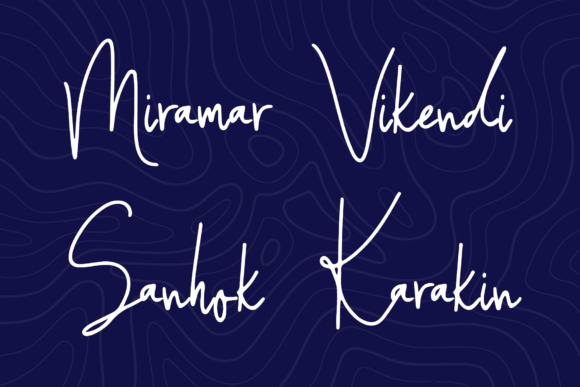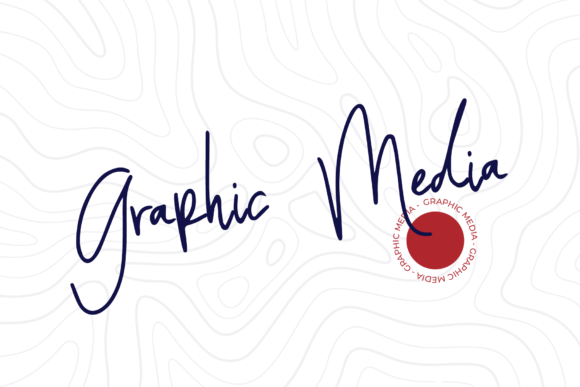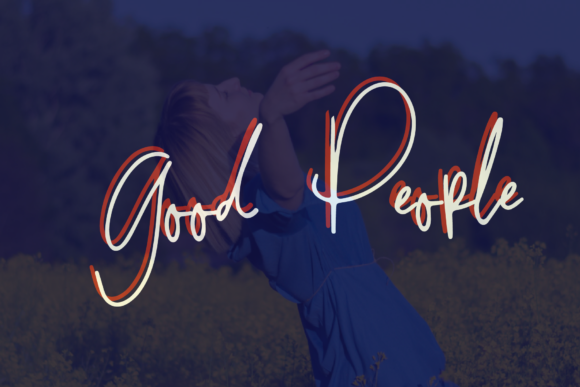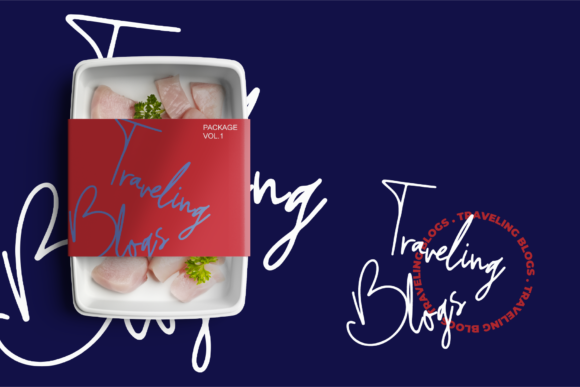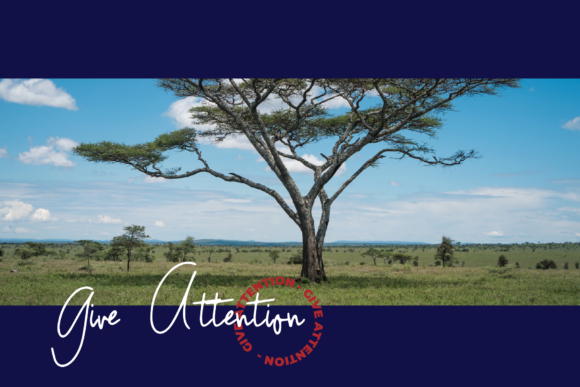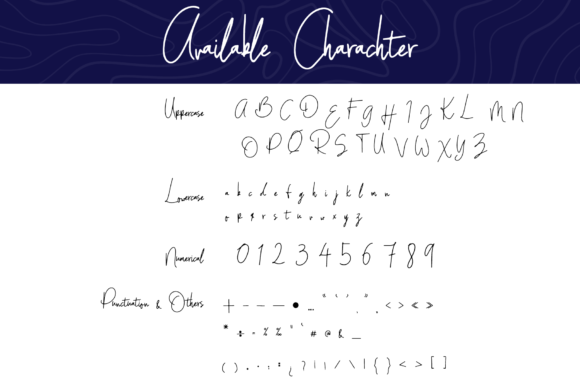
Introducing Erangel Field Font: Elevate Your Designs with Elegance and Personality
In the world of typography, a font can make or break the aesthetic of a design. For those seeking a touch of elegance and personalization, the Erangel Field Font is a game-changer. This unique and elegant handwritten font is perfect for designers and crafters looking to add a distinctive flair to their projects. From wedding invitations to logos, Erangel Field is versatile and sure to impress.
The Beauty of Erangel Field
Erangel Field Font boasts a beautiful, handwritten style that exudes sophistication and charm. Its elegant strokes and carefully crafted letters make it an ideal choice for designs that require a personal touch. Whether you’re working on wedding-related projects, such as invitations, thank you cards, or greeting cards, Erangel Field is sure to bring a level of refinement and luxury.
One of the standout features of Erangel Field Font is its versatility. It’s not limited to wedding designs; it can be used across a variety of projects, including:
- Wedding Invitations: Make your wedding invitations truly special with Erangel Field’s elegant and cursive style.
- Thank You Cards: Express gratitude in style with beautifully crafted thank you cards.
- Greeting Cards: From birthdays to anniversaries, Erangel Field adds a touch of elegance to any greeting card.
- Logos: Yes, you read that right! Erangel Field can also be used to create stunning logos that stand out.
Why Choose Erangel Field Font?
With so many fonts available, why should Erangel Field be your go-to choice? Here are a few compelling reasons:
- Unique and Elegant: Erangel Field offers a fresh and distinctive look that sets it apart from more common fonts.
- Personalized Style: Add a personal touch to your designs with a font that feels both luxurious and approachable.
- Easy to Read: Despite its elegant nature, Erangel Field remains clear and easy to read, making it perfect for a variety of applications.
- Highly Versatile: Use it across different projects and mediums, from digital designs to print materials.
Tips for Using Erangel Field Font
To make the most of Erangel Field Font, consider the following tips:
- Pair with Simplicity: Let Erangel Field be the star of your design by pairing it with simpler fonts or backgrounds.
- Play with Colors: Experiment with different colors to find the perfect match that enhances the elegance of Erangel Field.
- Consider Size: While Erangel Field is elegant in larger sizes, it also works beautifully in smaller sizes for more subtle applications.
| Font Name | Erangel Field Font |
| Author | Jetsmax Studio |
Erangel Field Font is more than just a typeface; it’s a design element that can elevate your projects to new heights of elegance and sophistication. Whether you’re a professional designer or a crafter looking for that special touch, Erangel Field is sure to meet your needs and exceed your expectations. With its versatility, elegance, and ease of use, it’s an excellent addition to any design toolkit.